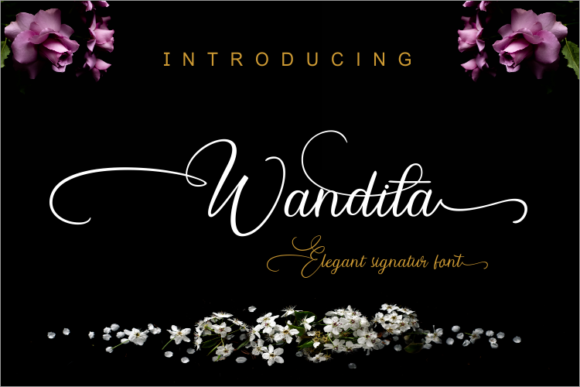
Embark on an enchanting typographic journey with Wandita Font, a captivating creation from artype07 that will transform your digital designs into masterpieces of expression. Wandita's exquisite handwritten style is a symphony of delicate curves and playful flourishes, evoking a sense of timeless elegance and whimsical charm.
Immerse yourself in the boundless possibilities that Wandita Font offers. Its versatility shines through in a myriad of applications, from enchanting wedding invitations and alluring magazine covers to captivating logos that command attention. With Wandita, your designs will bloom with a touch of sophistication that will leave an unforgettable mark on your audience.
Unleash your creativity with Wandita's boundless potential. Whether you're crafting personalized greeting cards, designing eye-catching social media posts, or creating stunning posters, Wandita's versatile nature makes it the perfect companion for all your creative endeavors. Let your imagination soar as you explore the endless possibilities that await you with Wandita Font.
Indulge in the sheer beauty and allure of Wandita Font. Its intricate details and flowing lines will elevate your designs to new heights of sophistication. Prepare to be captivated by its timeless charm and undeniable elegance. Download Wandita Font today and embark on an extraordinary typographic adventure.